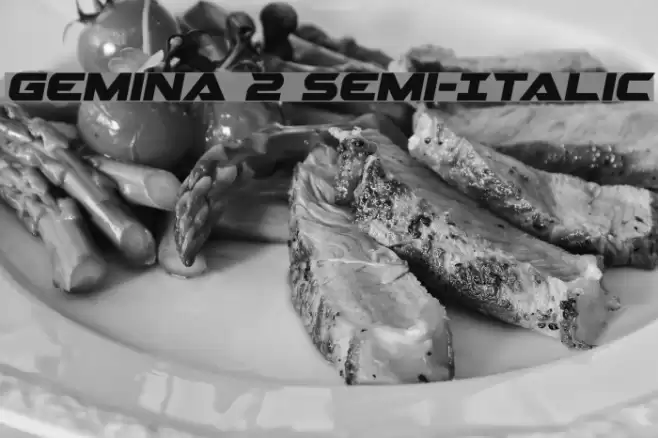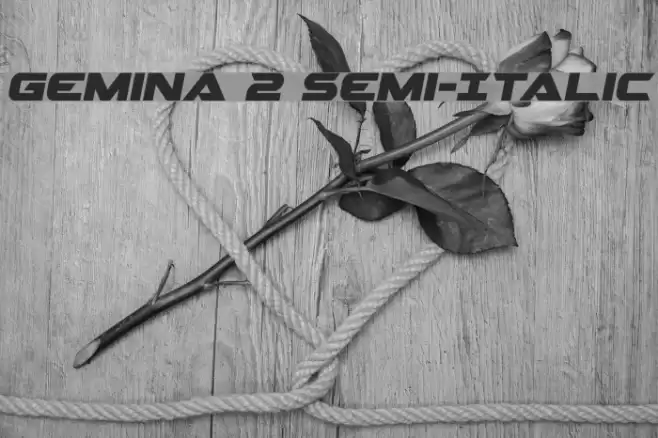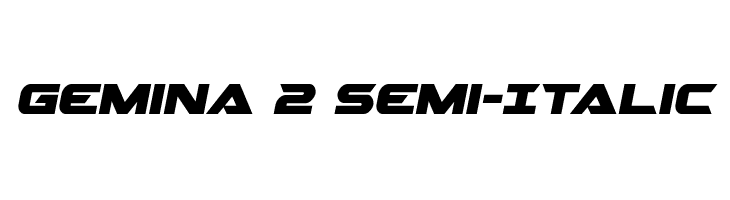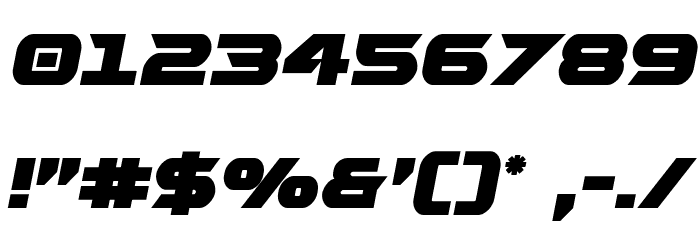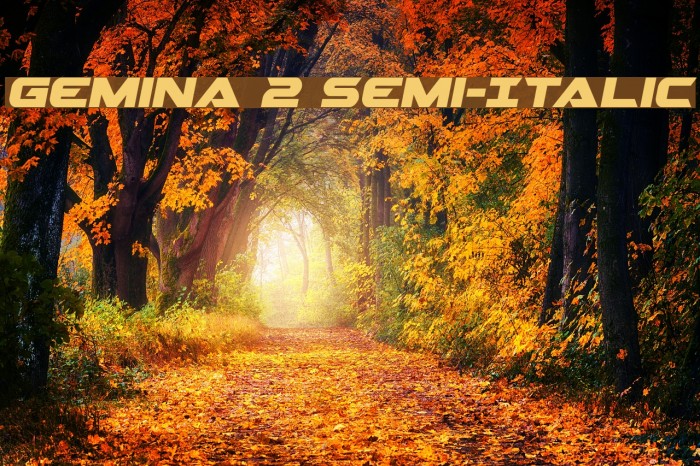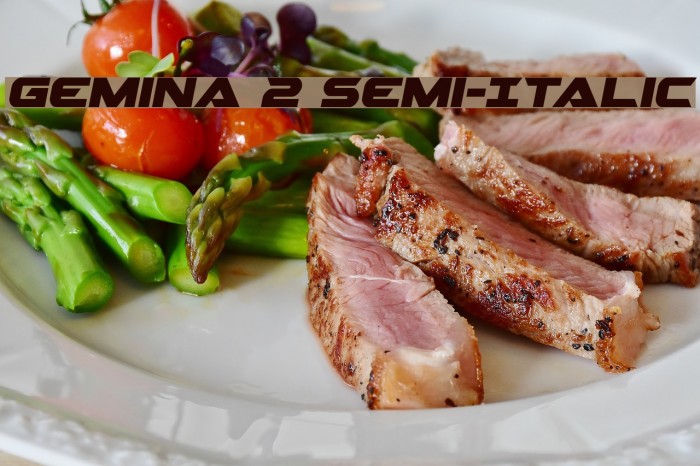
Gemina 2 Semi-Italic Font
Gemina 2 Semi-Italic Description
This font exhibits a bold and dynamic style with a semi-italic slant, giving it a sense of motion and energy. The characters are designed with sharp angles and clean lines, creating a futuristic and modern appearance. The uppercase and lowercase letters maintain a consistent style, with a slightly condensed width that enhances readability while preserving a unique aesthetic. The numerals and special characters are crafted to match the overall design, ensuring uniformity across all elements. This font's strong presence makes it suitable for impactful designs.
A bold, semi-italic font with a modern, dynamic style from Uncategorized fonts.
- Proposed Projects: Ideal for branding, sports team logos, technology-related designs, and dynamic posters.
- Use Case: Logos, Headlines